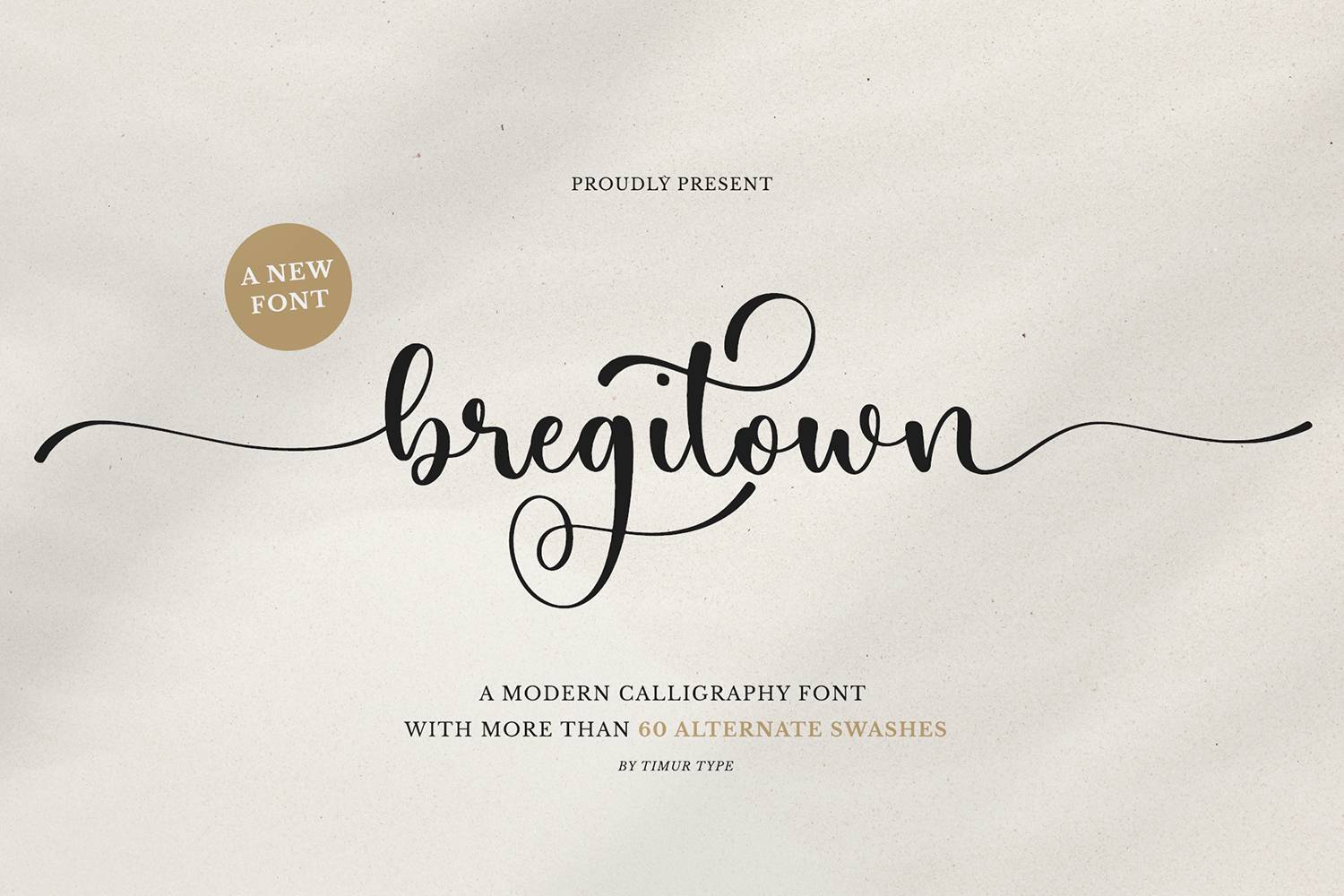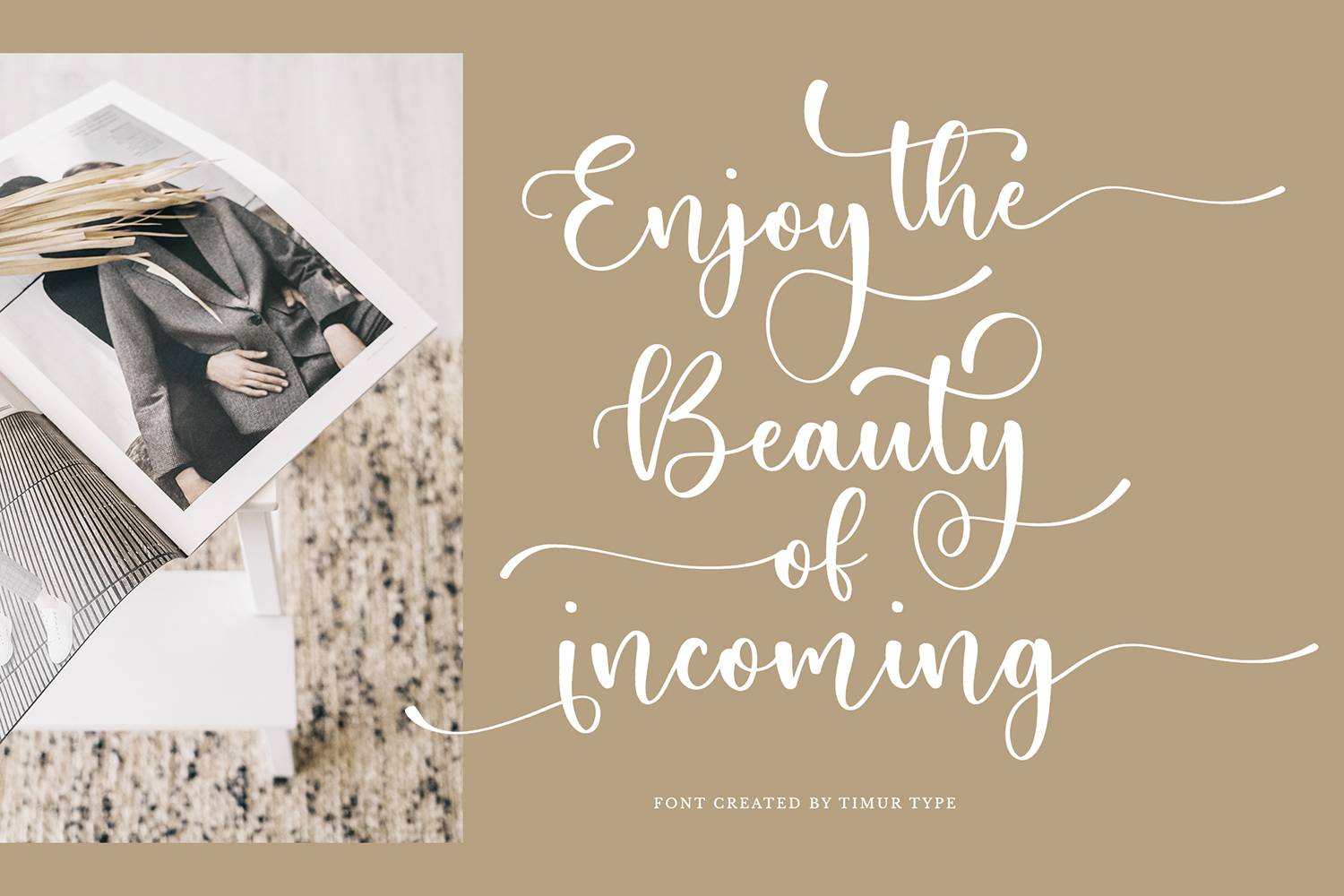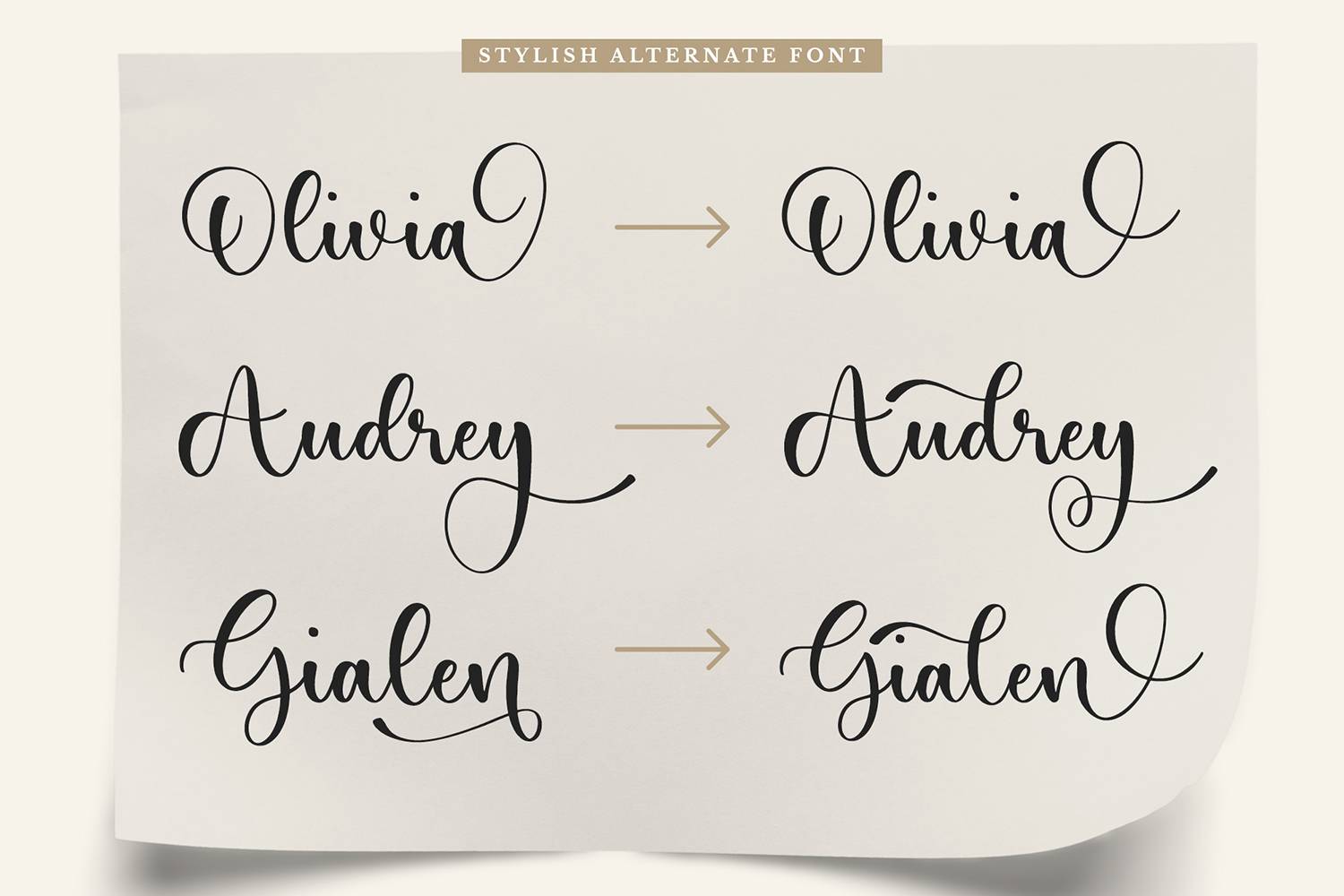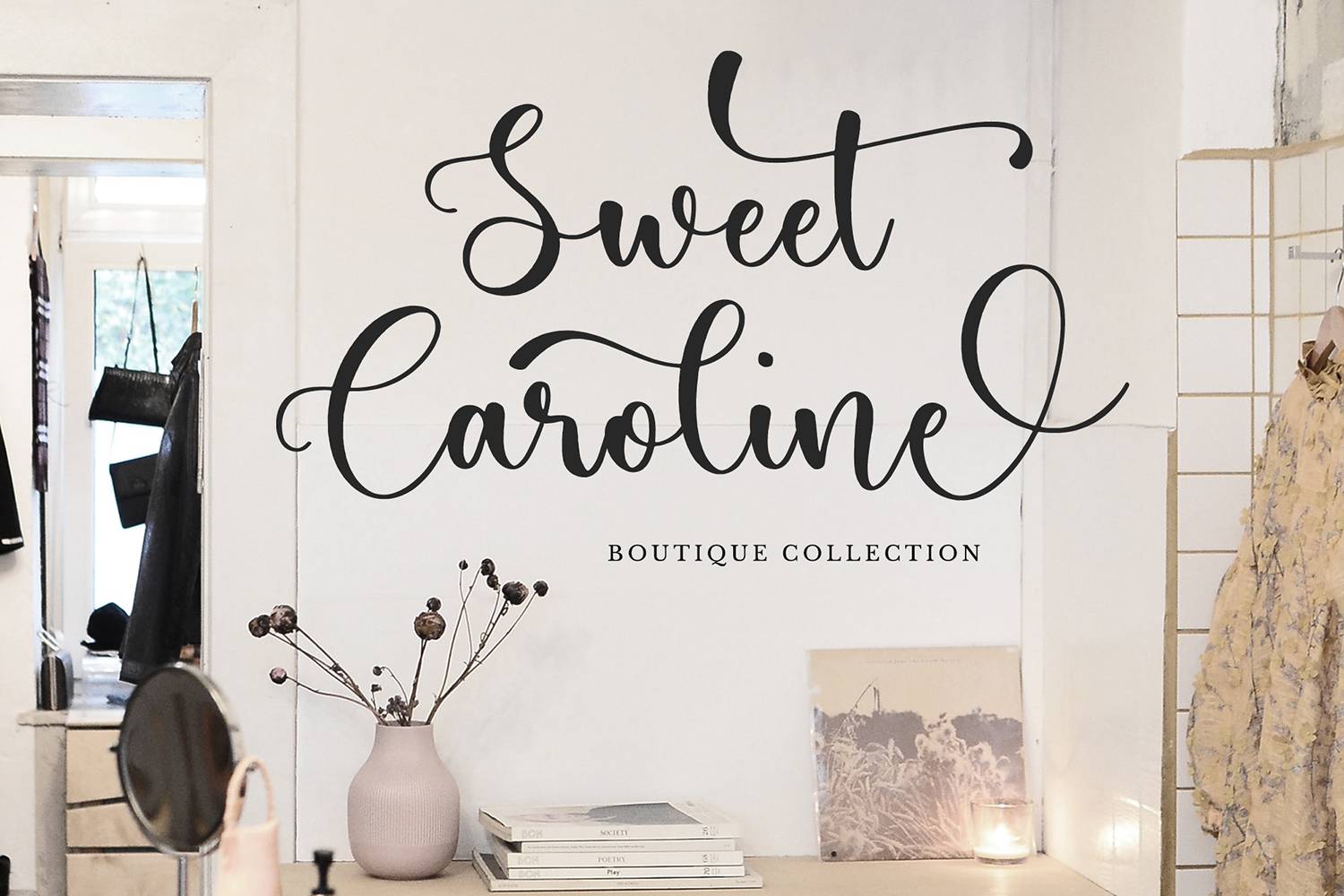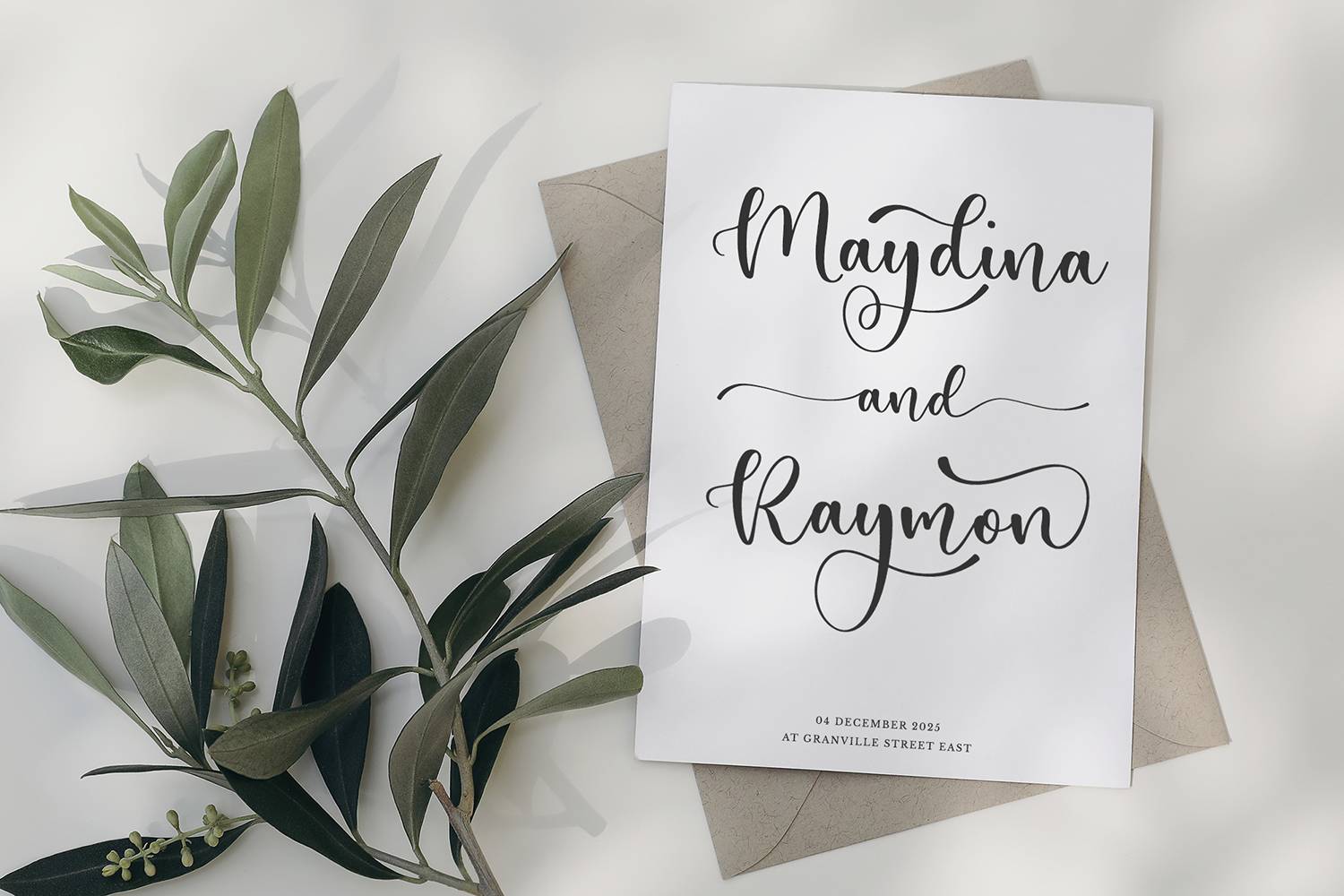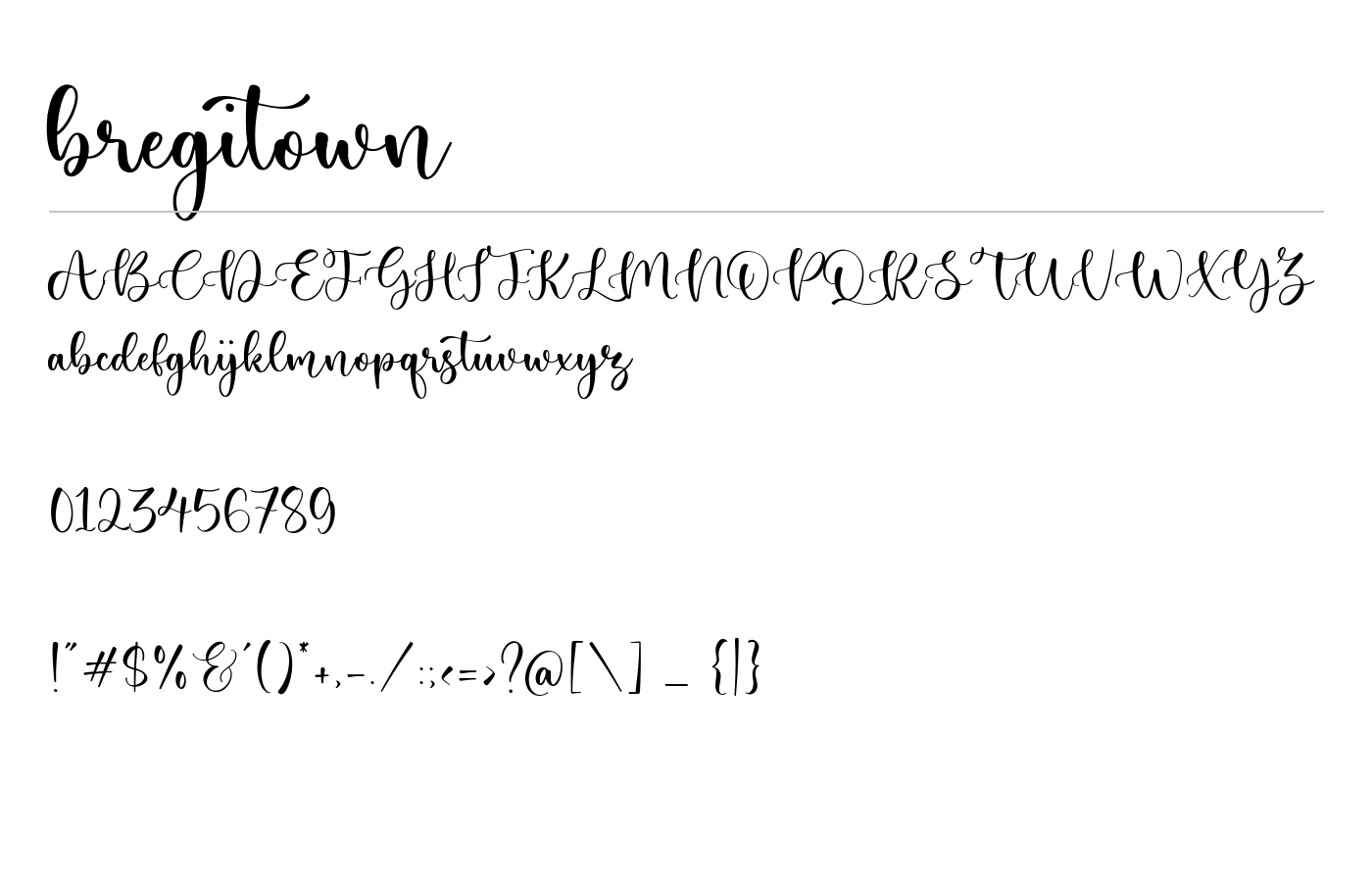
Bregitwon is a stylish script font with elegant, flowing letterforms that combine a friendly, handwritten feel with refined sophistication. Its medium weight and tall, graceful strokes make it perfect for brands or projects seeking a modern yet personal touch, especially in invitations, logos, and packaging. The font's distinctive swashes and smooth curves create an inviting, artistic look that works beautifully for creative headlines and decorative uses.
Bregitwon Font
About Bregitwon Font
| Font family | Bregitwon Font |
| Designer | Timurtype Studio |